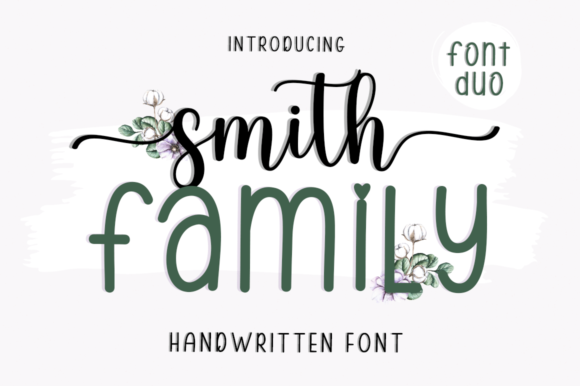
Are you tired of using the same old fonts for your designs? Look no further than the Smith Family Font duo! Created by the talented team at madjack.font, this hand brushed font is perfect for adding a unique touch to your designs.
The Smith Family Font duo is a versatile typeface that can be used for a variety of purposes. It's perfect for bold watercolor designs, handwritten styles, blog titles, posters, wedding elements, t-shirts, clothing, book covers, business cards, greeting cards, branding, merchandise, and more!
What sets the Smith Family Font duo apart from other fonts on the market is its authentic hand brushed texture. Each letter has been meticulously crafted with brush and ink to give it a natural and organic feel. This font is the perfect choice for designers who want to add a personal touch to their projects.
If you're looking for the best font for poster making, look no further than the Smith Family Font duo. Its bold and eye-catching style will make your posters stand out from the crowd. But that's not all - this font is also perfect for creating wedding invitations, greeting cards, and other special occasion materials.